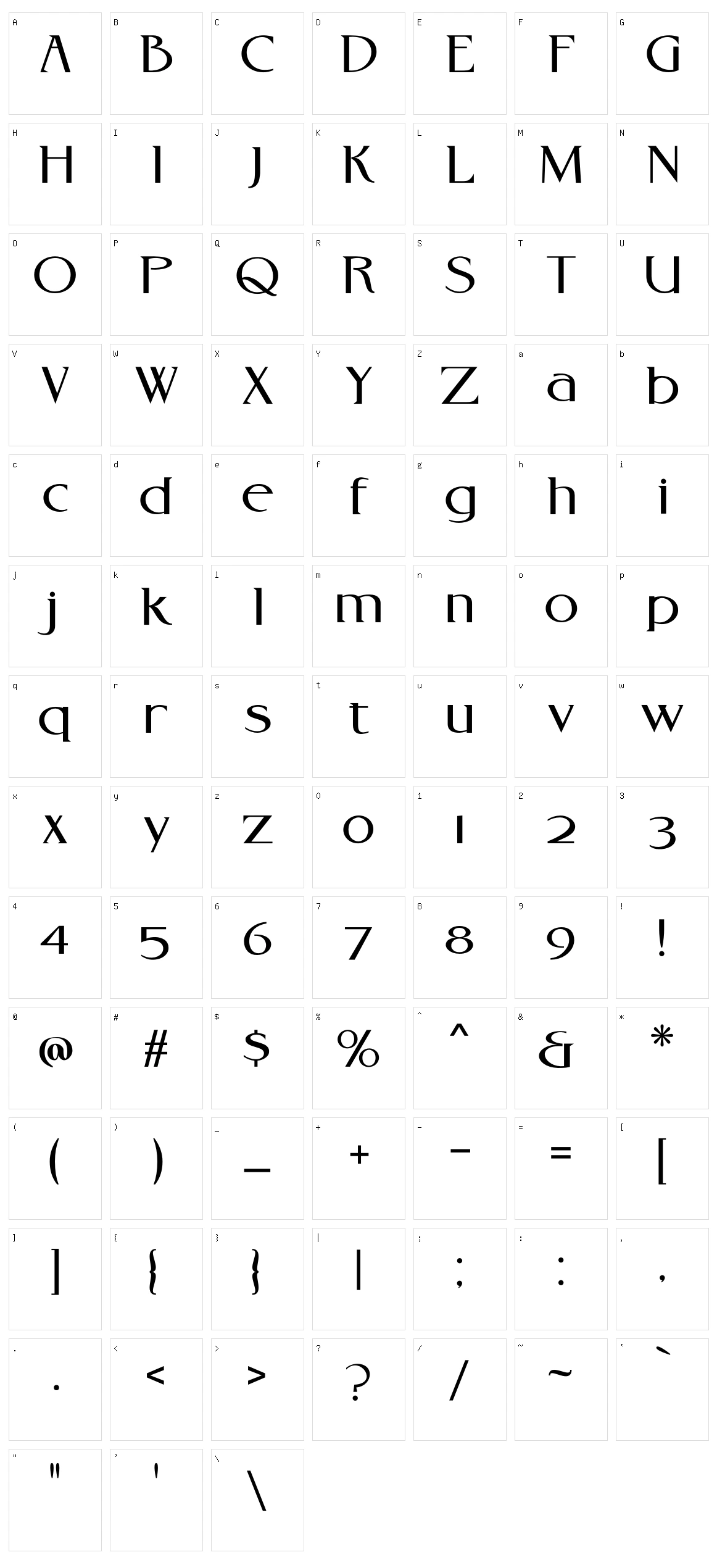
RebelRedux (version 01a) ...defiance redefined!
This is my second font I been working on from scratch working with CorelDraw and FontForge. I wanted to go back and do a continuation of my RebelCaps from 3 years ago.
Included in the font are two Basic Latin Characters, Cyrillic, Greek, Vietnamese, Turkish and other foreign accented characters. There's also Punctuation, Currency, some Symbol and Letter-like characters, I may attempt to update soon with other characters.
I have encluded Currency, Subscript and Superscript numbered characters, and some adjustments to the fonts.